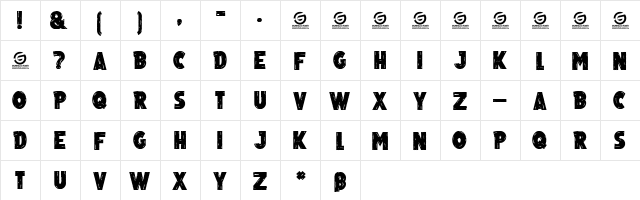
Dusty Ranch Regular
Design Context for Dusty Ranch Typeface
Dusty Ranch is a composed and adaptable typeface that performs quietly and consistently across a wide range of design contexts.
Pro Tip: Use Dusty Ranch in both headline and body roles to test its range before committing to a single application.